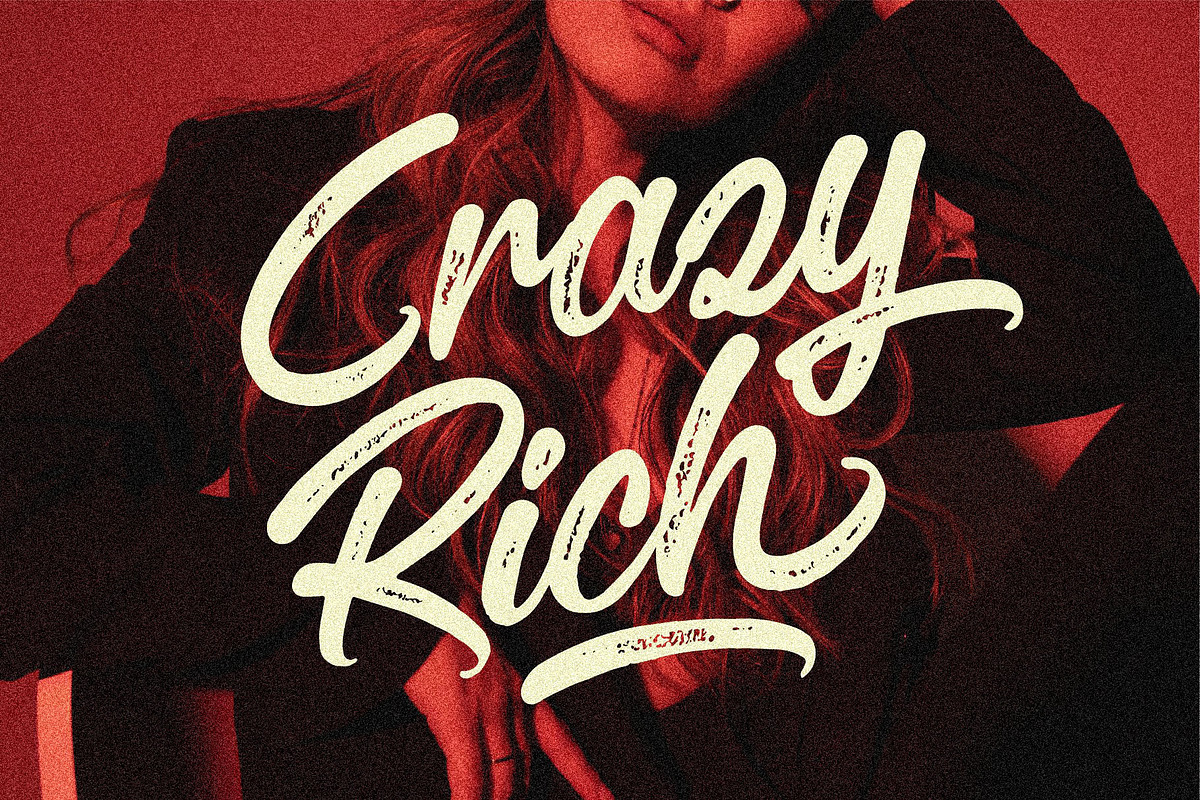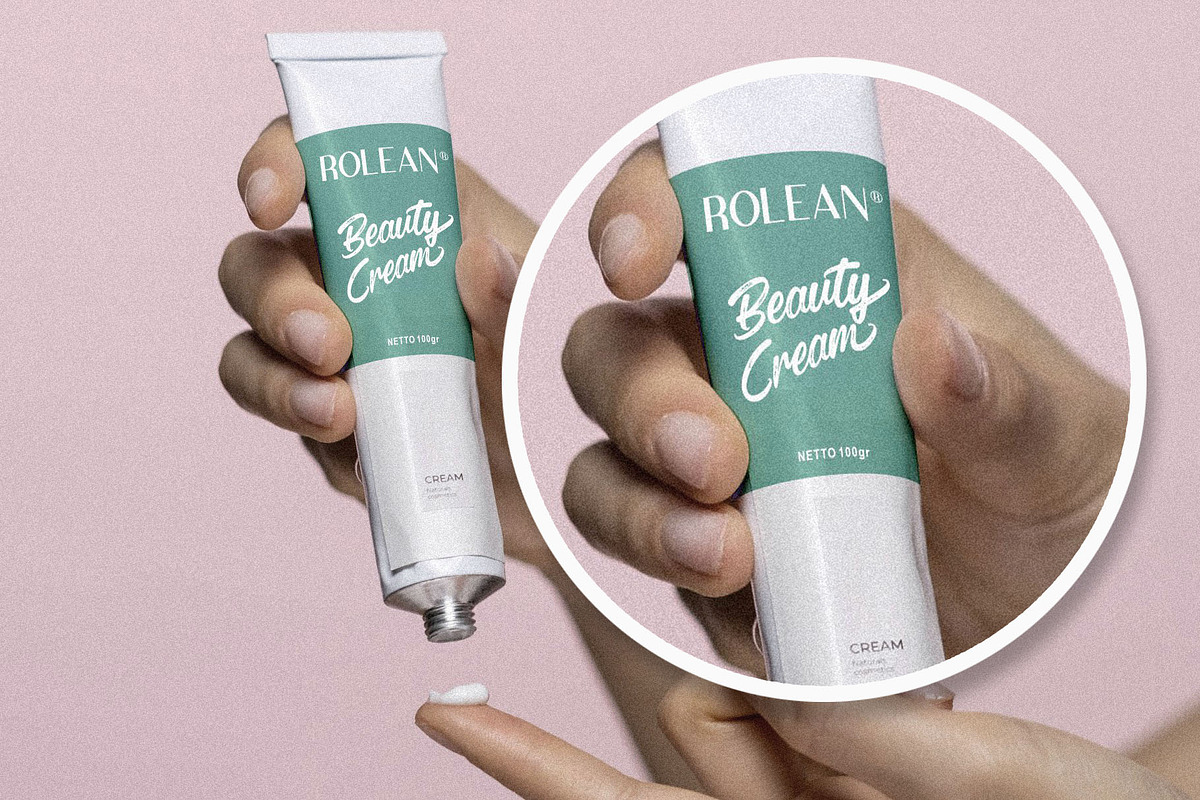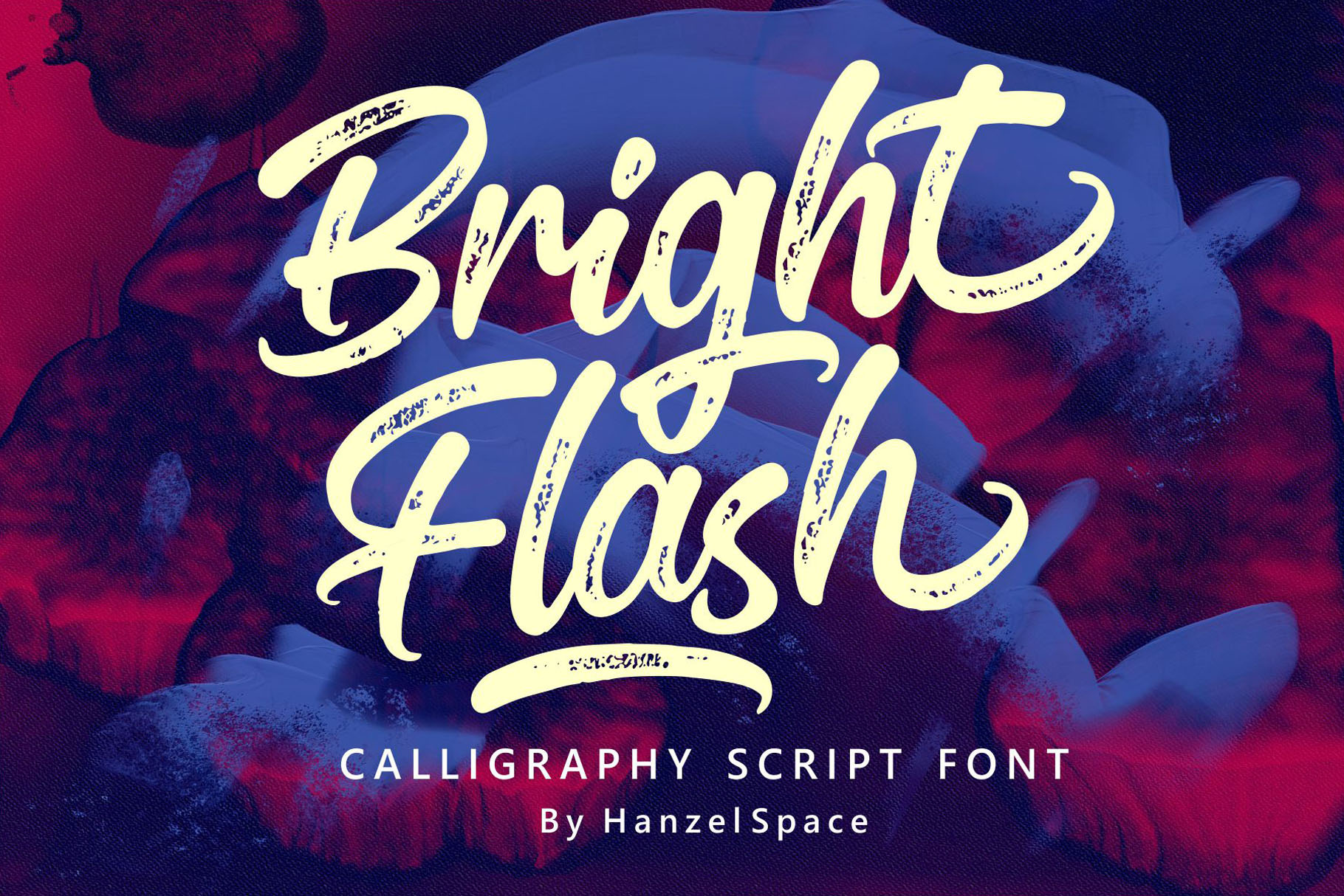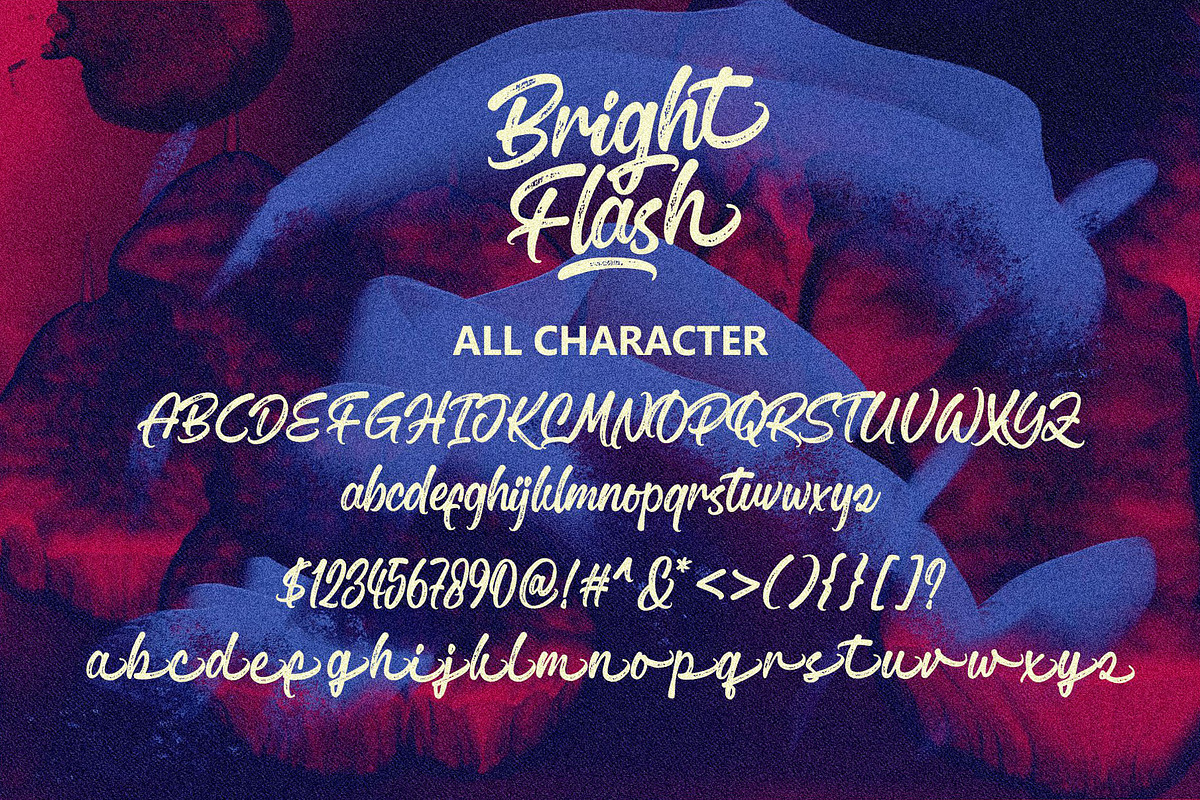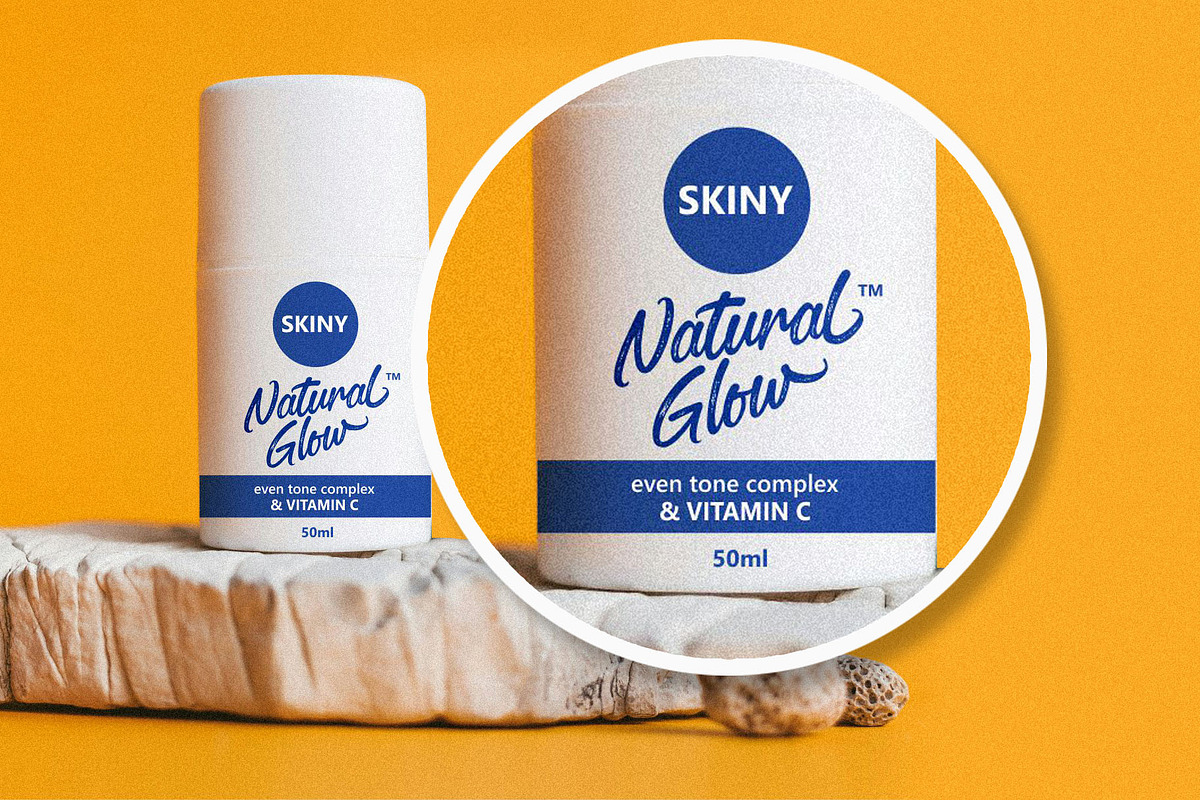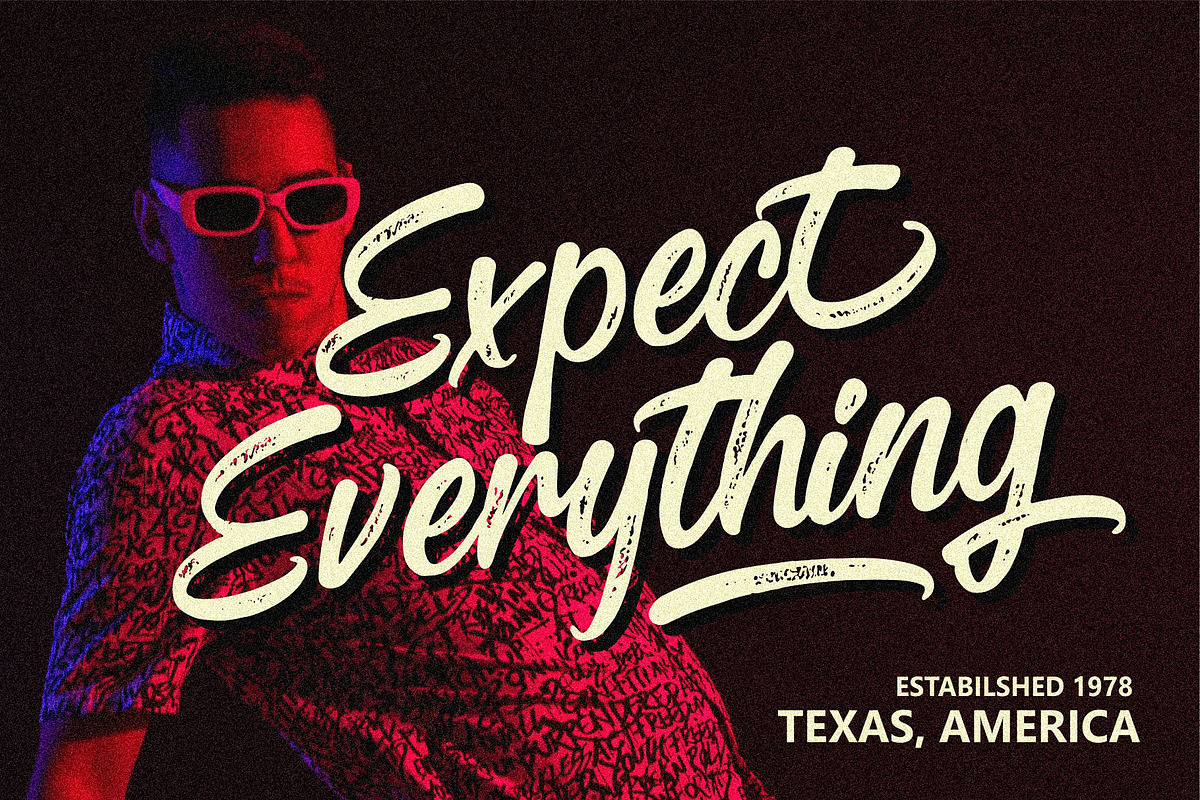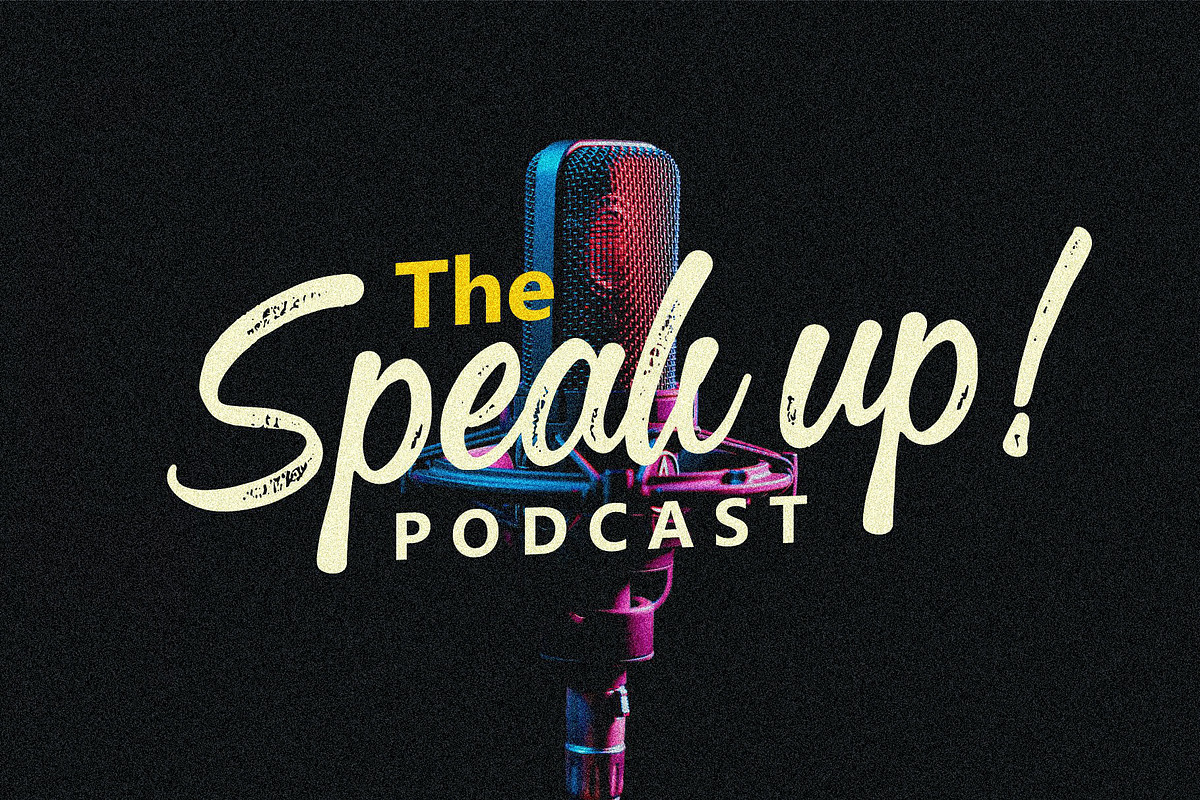
Bright Flash – Script Font
Bright Flash – Calligraphy Script Font – A very cool script based on a textured handwritten script. This type of font is perfectly made to be applied especially in logos, and the other various formal forms such as invitations, labels, logos, magazines, books, greeting / wedding cards, packaging, fashion, make up, stationery, novels, labels or any type of advertising purpose.
Multilanguage Supports
Swash